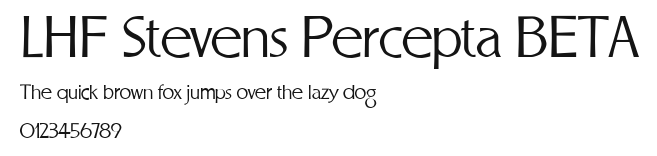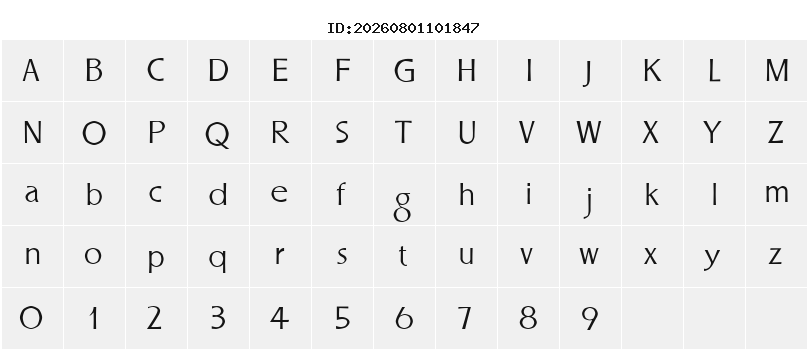
LHF Stevens Percepta BETA Preview
• Font Name: LHF Stevens Percepta BETA
• Full Font Name: LHF Stevens Percepta BETA LIGHT
About LHF Stevens Percepta BETA.ttf
LHF Stevens Percepta BETA.ttf is a modern, elegant sans-serif font designed for ultimate readability and visual harmony. Perfect for branding, headlines, web design, and print materials.